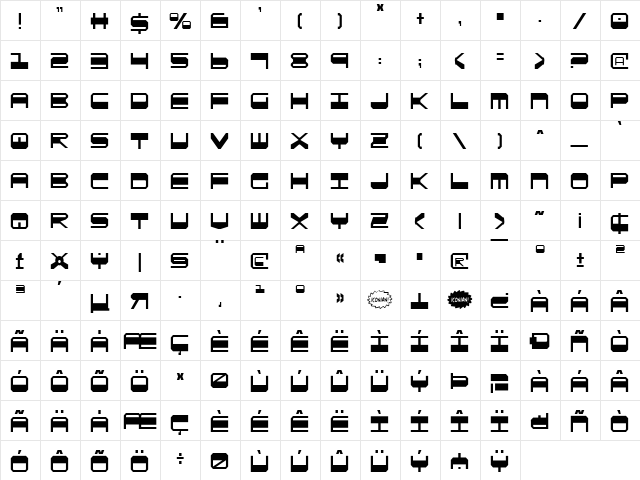
QuickGear Condensed Condensed
| Designer | Dan Zadorozny |
Design Context for QuickGear Condensed Typeface
QuickGear Condensed is a composed and adaptable typeface that performs quietly and consistently across a wide range of design contexts. The condensed width makes it efficient for tight spaces without sacrificing legibility.